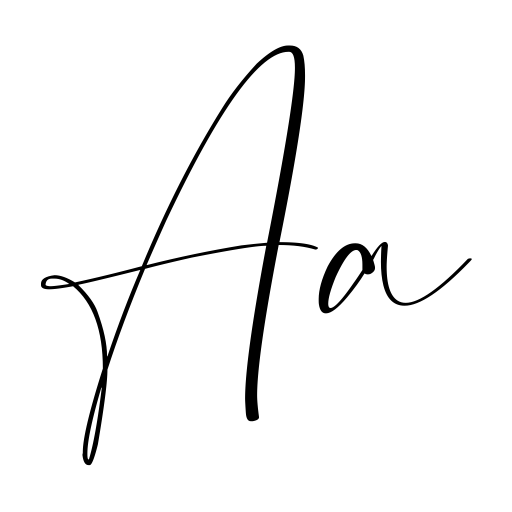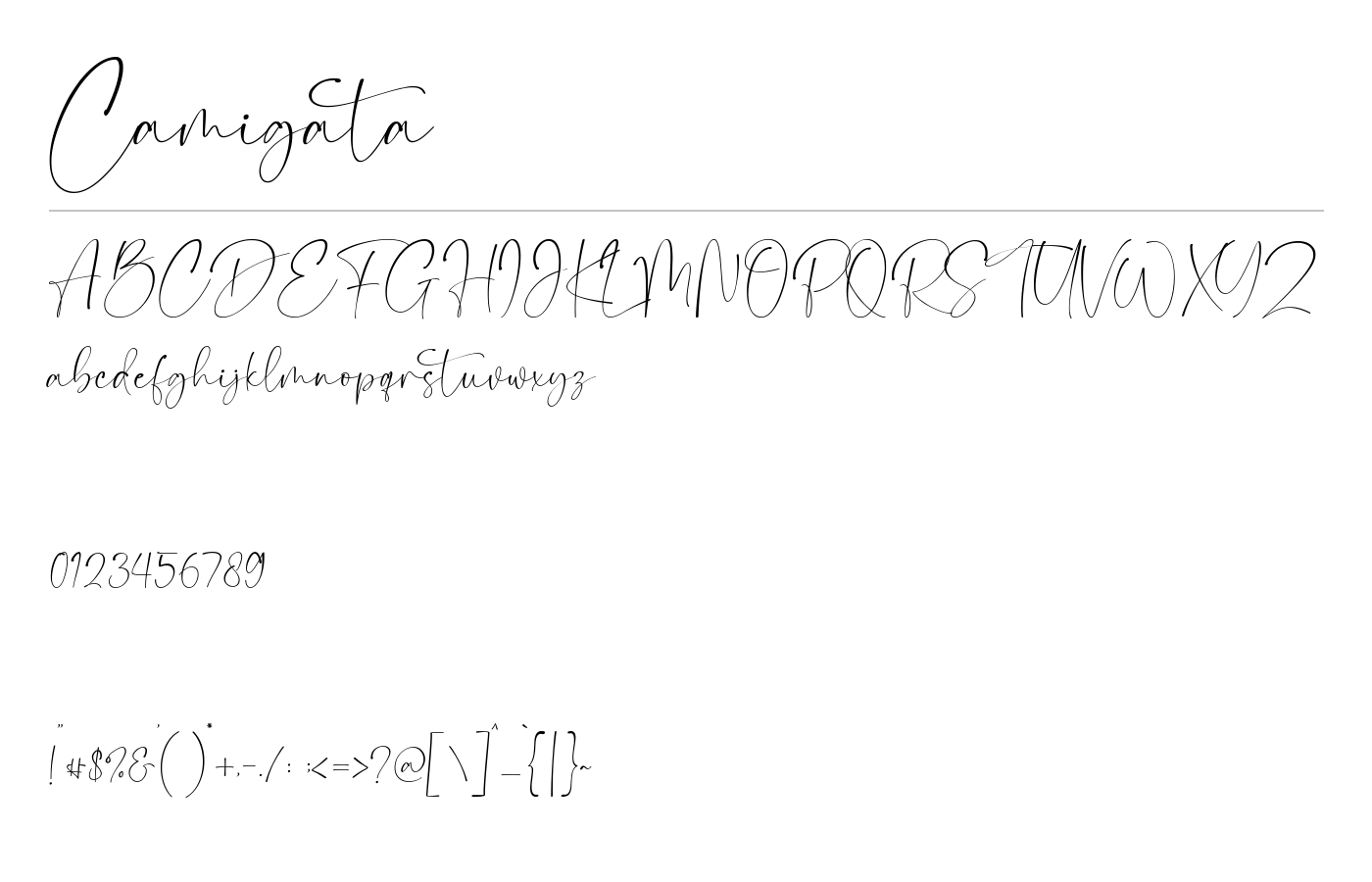
Camigata is a delicate script font with a light weight and elegant, flowing strokes that create a hand-lettered, airy feel. Its thin, smooth lines and unique letterforms make it perfect for adding a touch of sophistication and personality to wedding invitations, branding, and stylish editorial designs. This font shines in settings where a graceful, refined, and modern handwritten look is desired.
Camigata Font
About Camigata Font